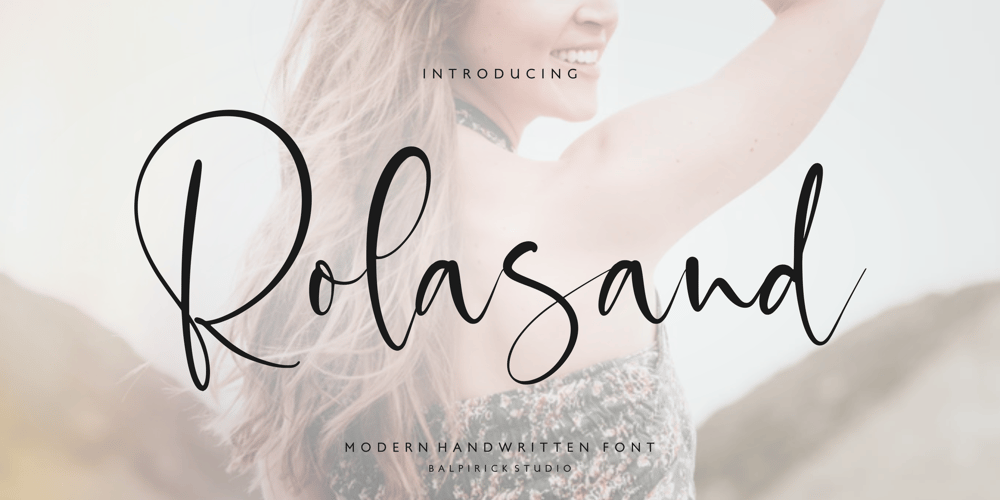
Rolasand Font Family was designed by Restu Angga and published by Balpirick. Rolasand contains 1 styles and family package options. Rolasand is a Modern Handwritten Font.Rolasand is perfect for product packaging, branding project, megazine, social media, wedding, or just used to express words above the background.Rolasand also multilingual support.Enjoy the font, feel free to comment or feedback, send me PM or email.Thank you!